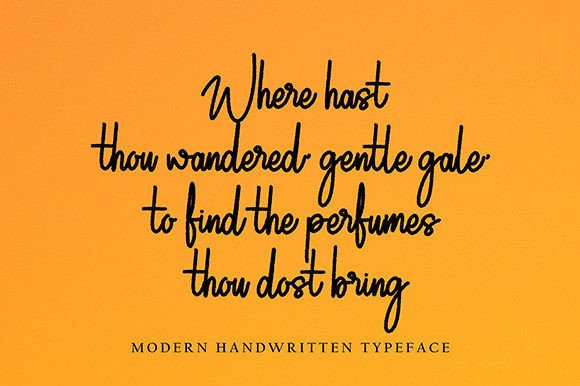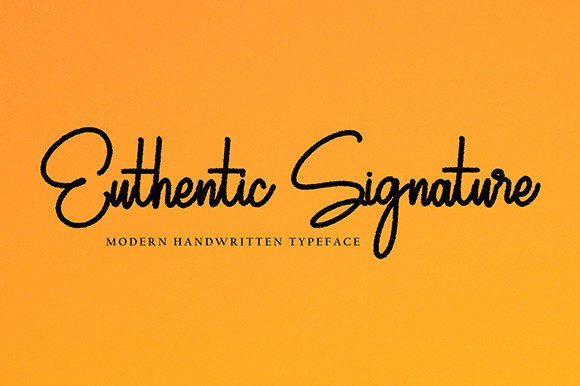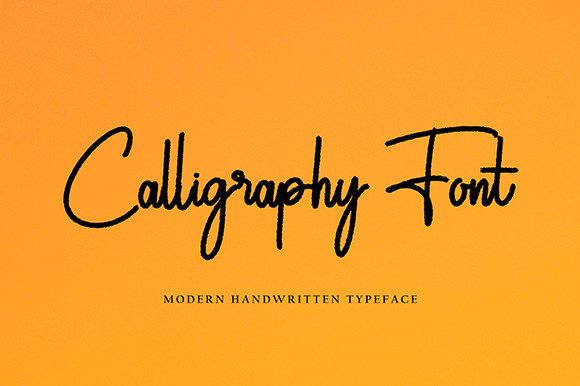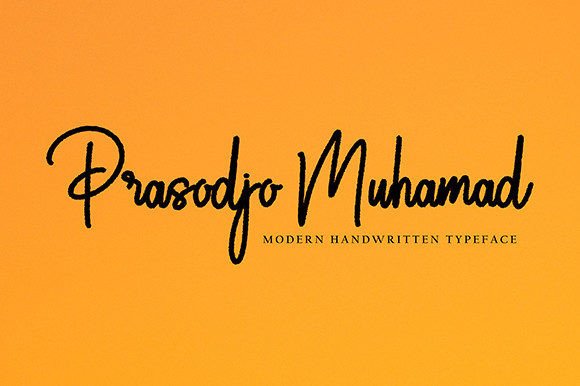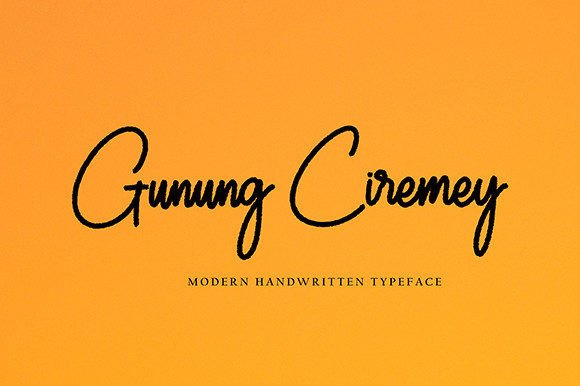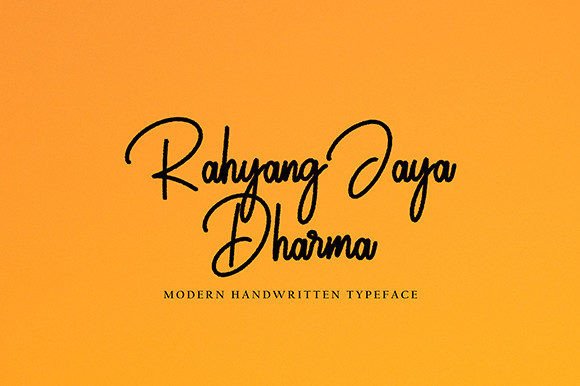
Introducing Auto Ballpoint: The Modern Handwritten Typeface
Are you tired of using the same old fonts for your designs? Look no further than Auto Ballpoint, a modern handwritten typeface that’s perfect for adding a personal touch to your projects. This lovely font is designed to bring a sense of elegance and sophistication to your designs, making it ideal for a wide range of applications.
What is Auto Ballpoint?
Auto Ballpoint is a carefully crafted handwritten font that’s designed to be both beautiful and versatile. Its unique blend of modern and traditional elements makes it perfect for designers and crafters looking to add a touch of personality to their work. Whether you’re creating a logo, blog header, poster, or invitation, Auto Ballpoint is the perfect choice.
Key Features of Auto Ballpoint
- Modern Handwritten Style: Auto Ballpoint boasts a fresh and contemporary handwritten style that’s perfect for designers looking for a unique font.
- Highly Versatile: This font is perfect for a wide range of applications, including quotes, logos, blog headers, posters, branding, letters, invitations, stationery, and more.
- Elegant and Sophisticated: Auto Ballpoint’s elegant and sophisticated design makes it perfect for projects that require a touch of refinement.
Uses for Auto Ballpoint
Auto Ballpoint is an incredibly versatile font that can be used for a wide range of projects. Here are some ideas to get you started:
- Logos and Branding: Create a unique and memorable logo for your business or brand with Auto Ballpoint.
- Blog Headers and Titles: Add a touch of personality to your blog with Auto Ballpoint’s elegant and sophisticated design.
- Posters and Flyers: Create eye-catching posters and flyers with Auto Ballpoint’s modern handwritten style.
- Invitations and Stationery: Add a touch of elegance to your invitations and stationery with Auto Ballpoint.
- Quotes and Typography: Use Auto Ballpoint to create beautiful and inspiring quotes and typography.
Why Choose Auto Ballpoint?
With so many fonts to choose from, why should you choose Auto Ballpoint? Here are just a few reasons:
- Unique and Memorable: Auto Ballpoint’s modern handwritten style makes it a unique and memorable font that’s sure to stand out.
- Elegant and Sophisticated: This font’s elegant and sophisticated design makes it perfect for projects that require a touch of refinement.
- Highly Versatile: Auto Ballpoint can be used for a wide range of applications, making it a great addition to any designer’s toolkit.
Tips for Using Auto Ballpoint
Here are a few tips for getting the most out of Auto Ballpoint:
- Experiment with Different Sizes and Colors: Auto Ballpoint looks great in a variety of sizes and colors, so don’t be afraid to experiment.
- Pair with Other Fonts: Auto Ballpoint pairs well with a wide range of fonts, so try pairing it with other fonts to create a unique look.
- Use for Headings and Titles: Auto Ballpoint’s elegant and sophisticated design makes it perfect for headings and titles.